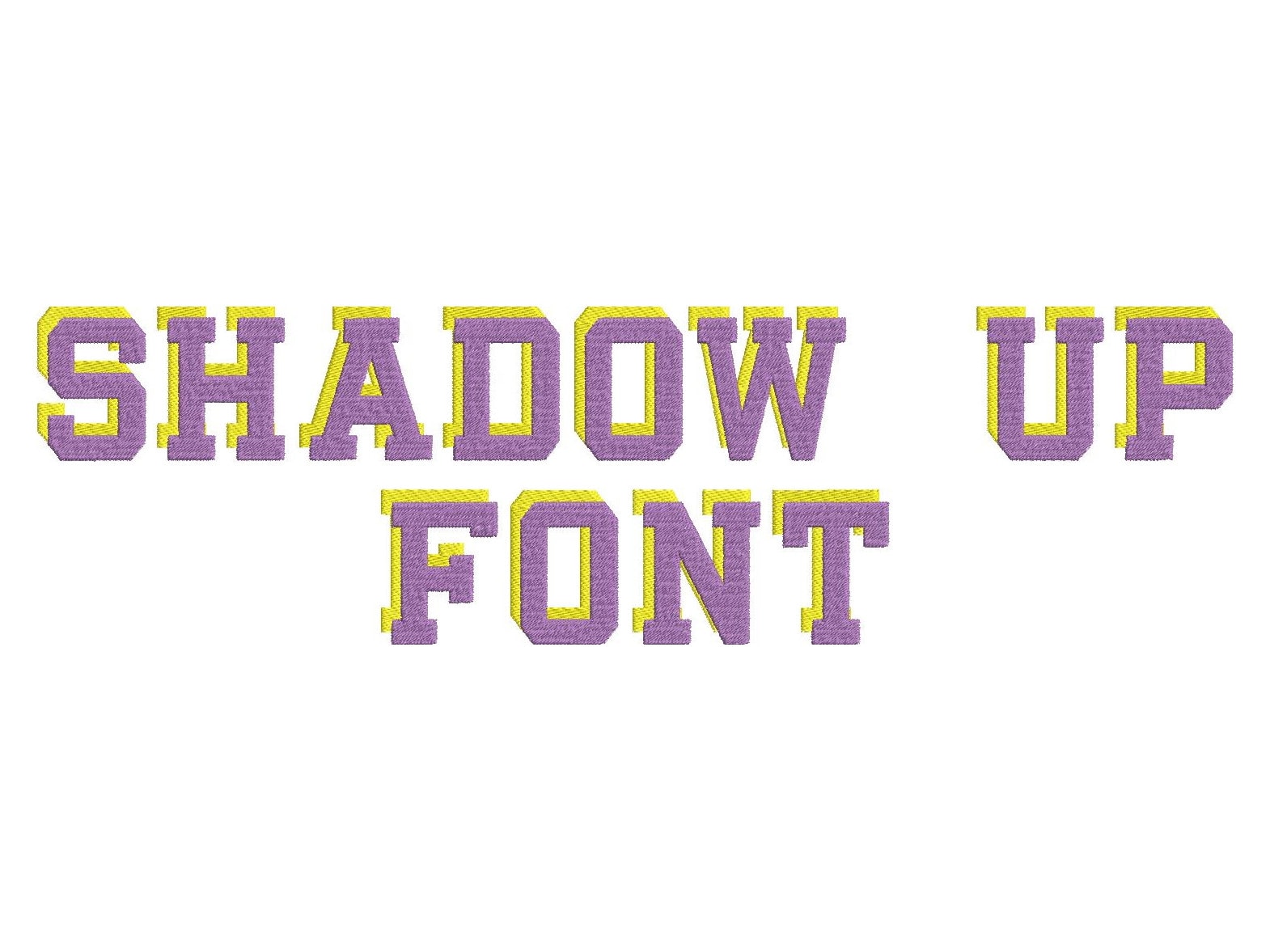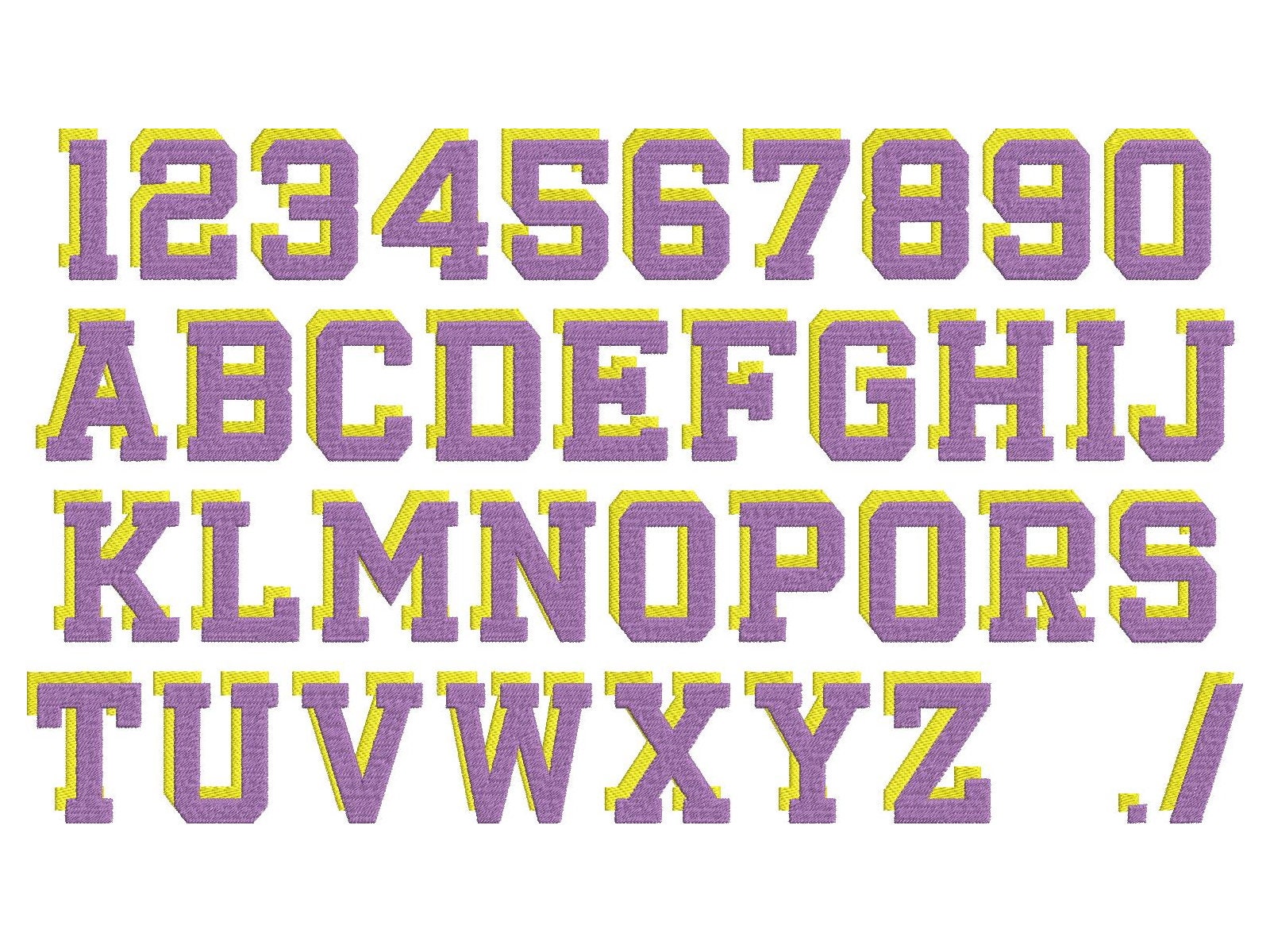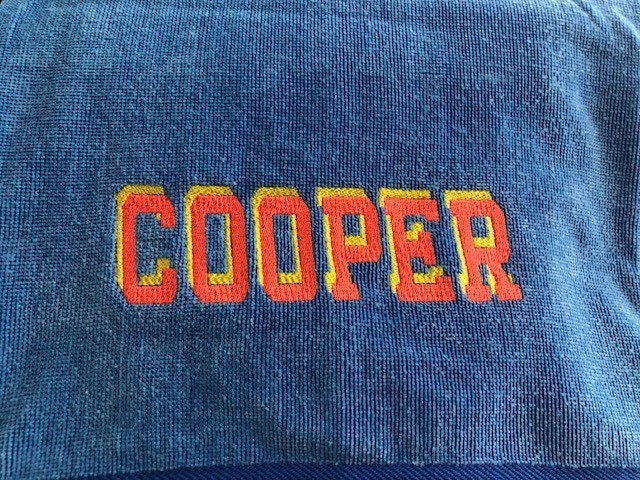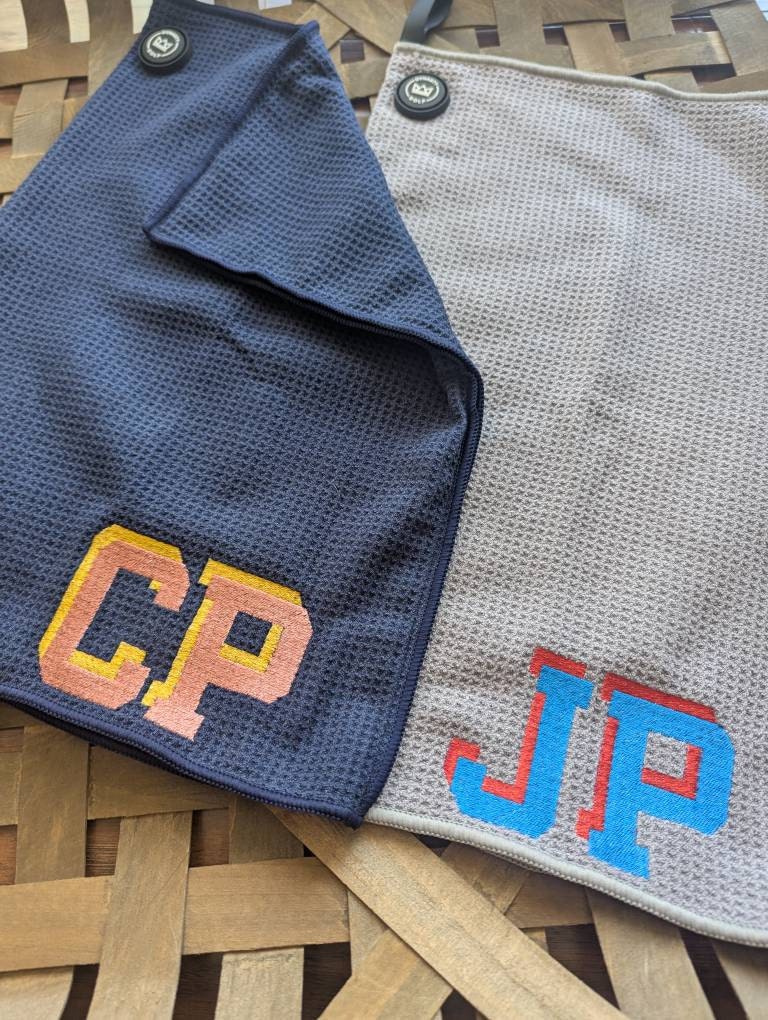
Block type Shadow Font fill stitch machine embroidery designs assorted sizes, sport shade letters and numbers, alphabet with shadow, BX font
Whole alphabet A-Z uppercase letters,
numbers 0-9 and special punctuation marks, dot and slash . /